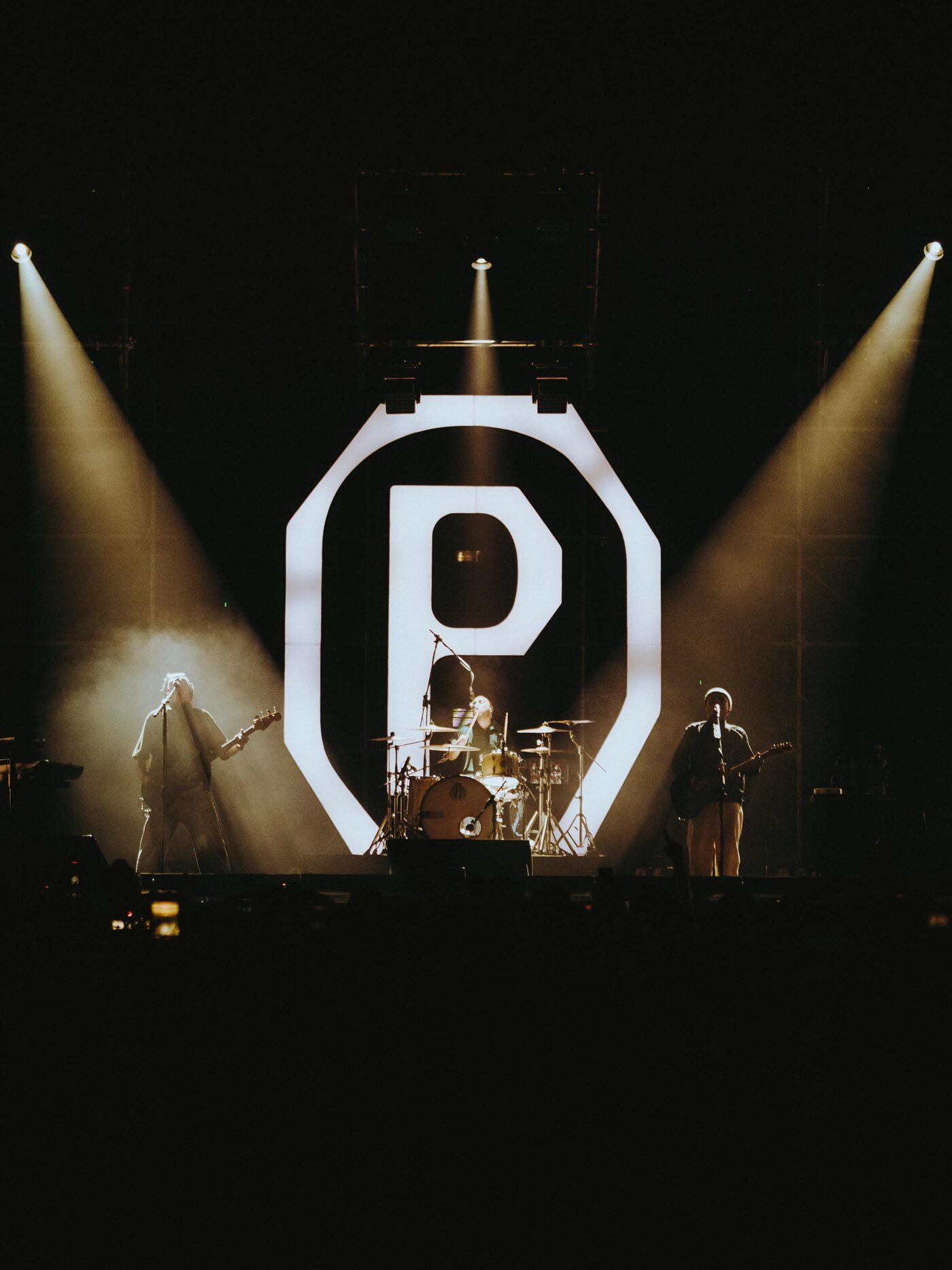
Slight Chance in use for Perunggu’s PDD tour
Here is an incredible use of Slight Chance for the recent PDD tour of the Indonesian alt-rock band Perunggu, designed by Under The Table.
It is such an unexpected joy to have a font inspired by something very specific (the early digital readouts of a cable TV weather channel) and to see it travel across the world and get used so successfully in an entirely new context.